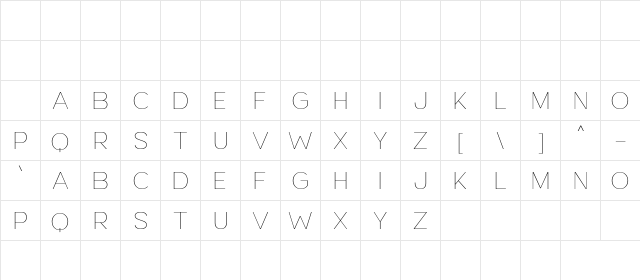
Complete Crafter Dreams Thin glyph index. Displaying only characters natively supported by Crafter Dreams Thin font.
Crafter Dreams is a composed and adaptable typeface that performs quietly and consistently across a wide range of design contexts. Its slender proportions lend an understated elegance to any composition.